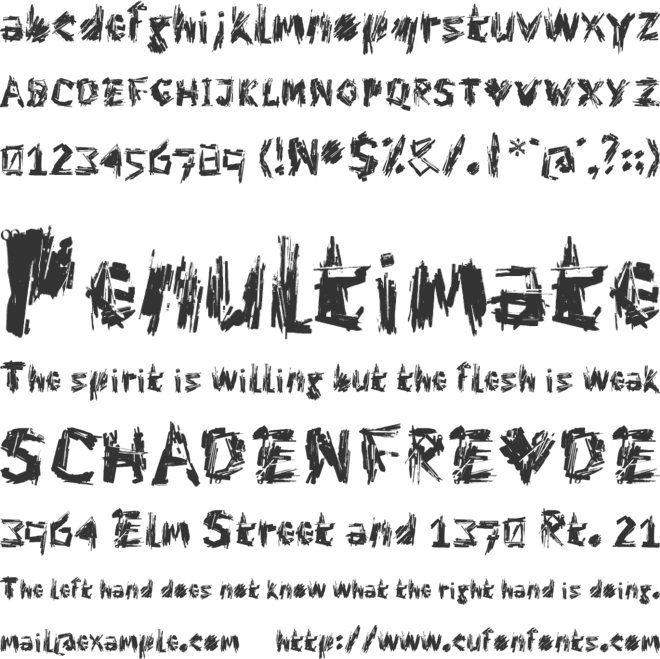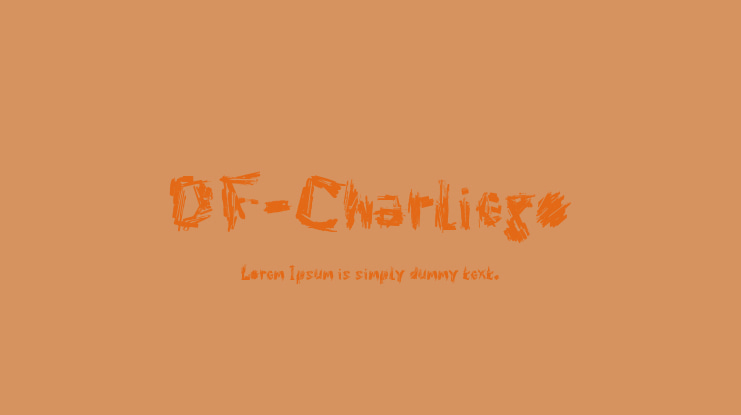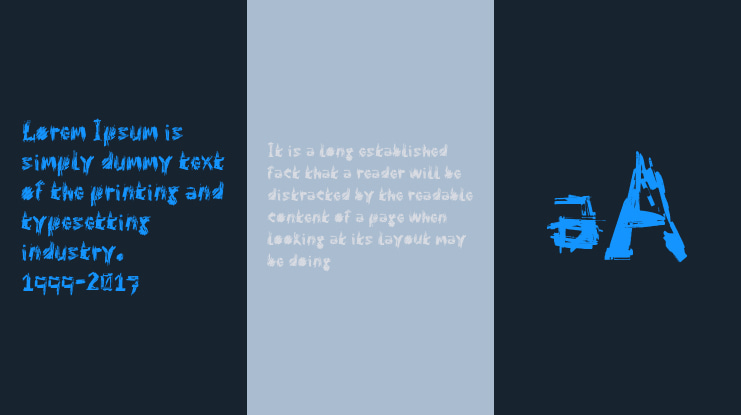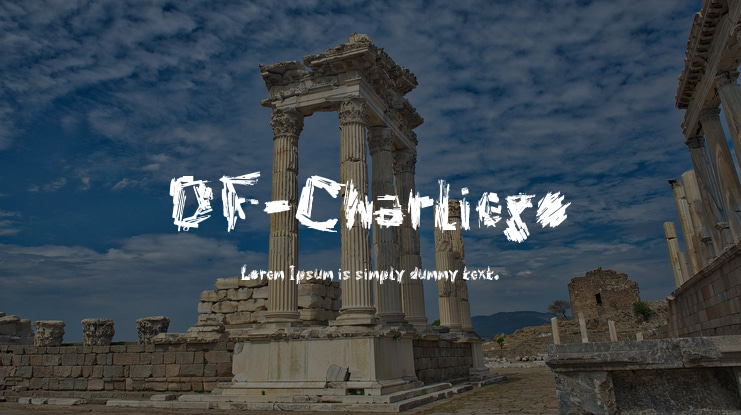
DF-Charlie_go! is designed by Ko Sliggers january 10 2015 and released by dutchfonts DF-Charlie_go! Is a solidarity typeface, dedicated to the free expression and imagination of meaning. Paris 09.01.2015 DF-Charlie_go! is a 100% free font